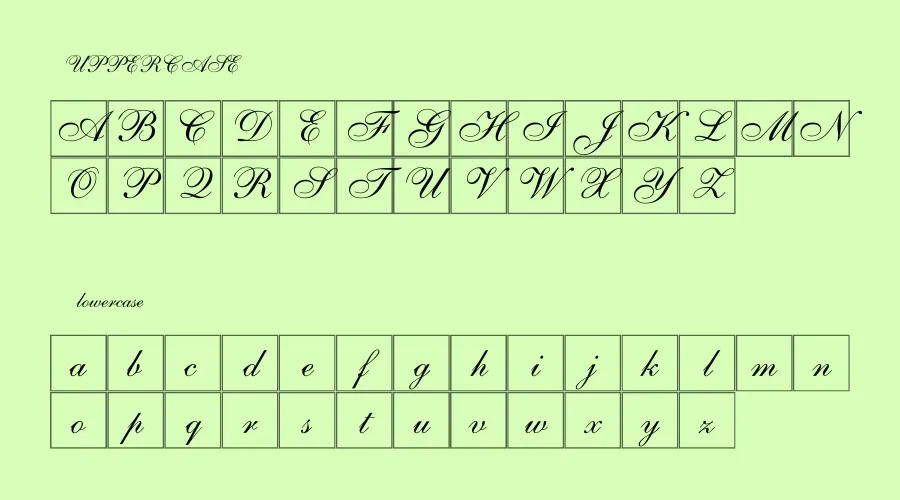
Sheer Elegance Font
About Sheer Elegance Font
Sheer Elegance Font is designed by WSI-Fonts. This font is a fantastic option when you're seeking a fresh font for any upcoming marketing venture or want to give the design unique individuality. It is a member of the script font family.
It goes well even with Connoisseurs Font. The typeface is a great choice if you're searching for a layout that will bring some humor or delight to the task.